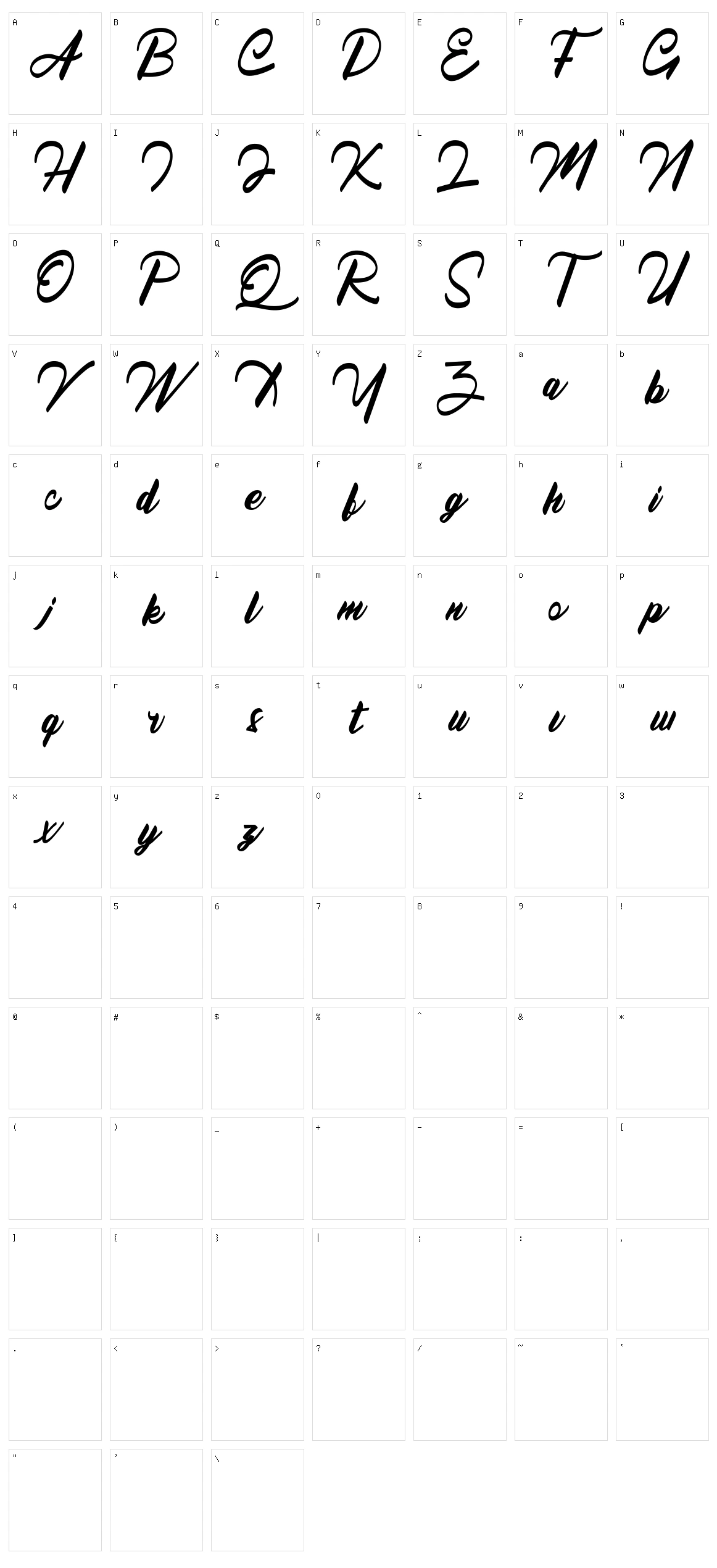
The free font Queensland is carefully designed by Nurrehmet Studio, showcasing a thoughtful balance of creativity and usability and falls under the Script font style. When you download the ZIP file, it contains only 17.94 KB of font files, making it lightweight and quick to download. Please review the license details below to understand permitted usage and distribution rights. If license information is not available, we recommend using this font for personal projects only or contacting the author directly for commercial usage permissions.